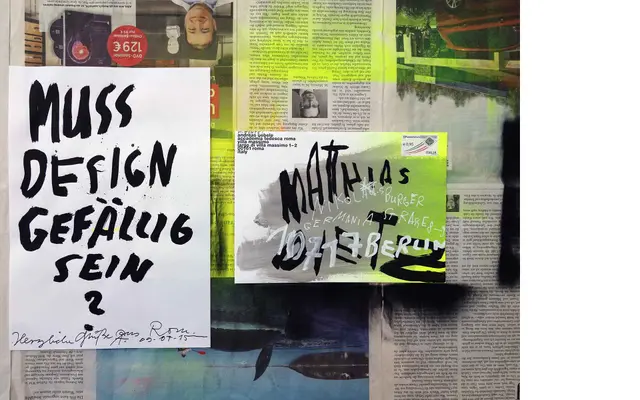
Massimo Grafia
Nice To Type · Gabriel Richter and Andreas Uebele · 2018
A grotesque with hand-drawn origins, offering a calm base alongside an unusually rich set of alternates across proportional, semi-mono and mono variants.
Drawn from handwritten correspondence by Andreas Uebele during his residency at Villa Massimo in Rome, Massimo Grafia pairs a restrained grotesque foundation with at least five alternates for every letter, numeral and both cases. The family spans three spacing models — proportional, semi-mono and mono — each available in four weights, with a variable font covering both weight and mono axes. A stripped Plain version ships alongside each weight for faster web loading when the alternates are not needed.
A grotesque sans with a hand-drawn origin, developed from handwritten correspondence by Andreas Uebele and expanded into a structured type family by Gabriel Richter. The calm base construction and alternate characters place it firmly in the grotesque tradition with expressive qualities.